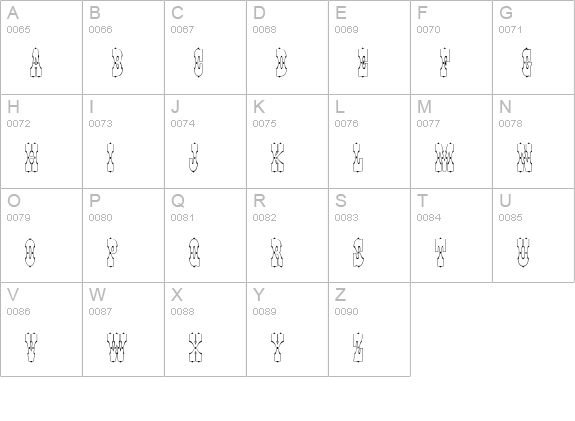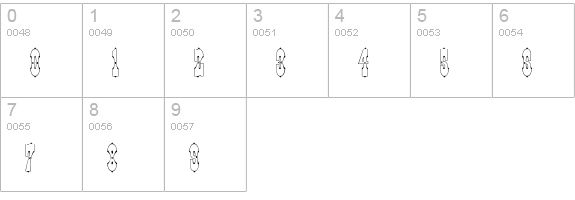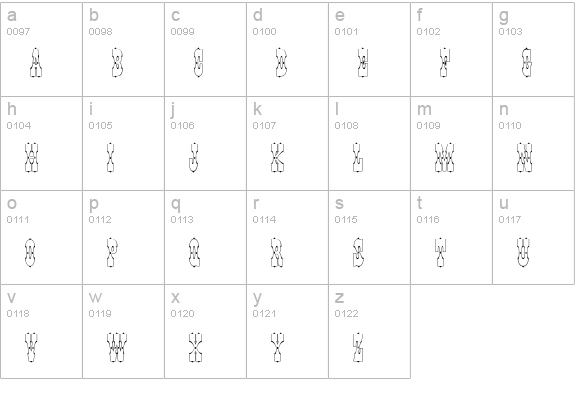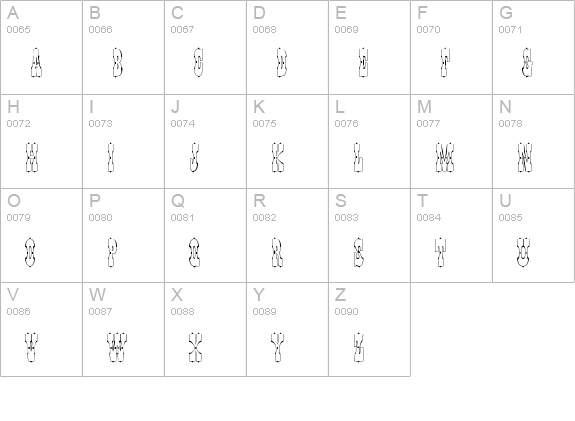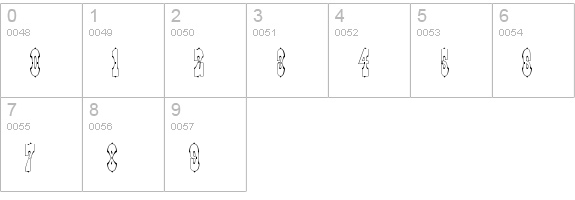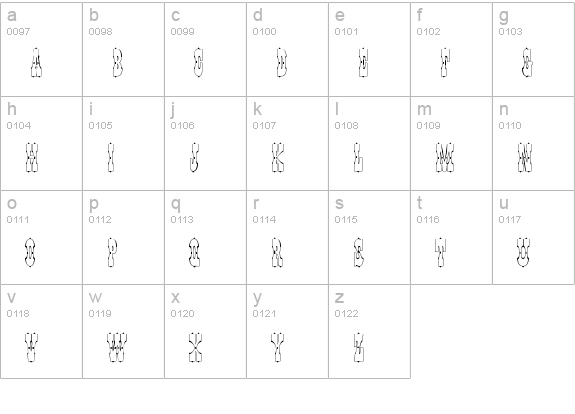
Pepperwood Outline Font Details
Pepperwood Outline is a stunning and versatile font that will add a touch of elegance and sophistication to your designs. With its clean and modern lines, this font is perfect for a wide range of applications, from branding and advertisement to invitations and headlines. The outline style of Pepperwood adds a unique and artistic element to your projects, making it stand out from the crowd. Its bold and distinctive strokes ensure that your message is delivered with impact and style. Not only is Pepperwood Outline visually appealing, but it is also incredibly easy to work with. Its legibility and readability make it suitable for both print and digital designs. Whether you're designing a logo, creating a poster, or crafting a social media graphic, this font will effortlessly enhance your creations. One of the best things about Pepperwood Outline is that it is free to download! You can easily access this amazing font at FontsMarket.com, where you'll find a vast collection of high-quality fonts for all your creative needs. Don't miss out on this fantastic opportunity to enhance your projects with the elegance and sophistication of Pepperwood Outline - download it today and let your creativity soar!